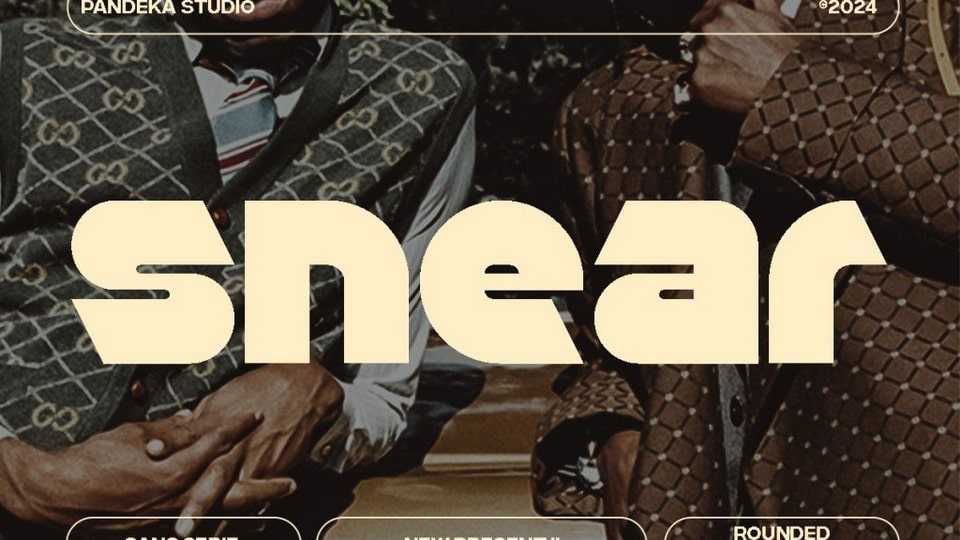
Download Snear font, a sans-serif typeface with a heavy touch. The concept is a big x-height and small ascender. This font is perfect for branding, titling, headline, and more.